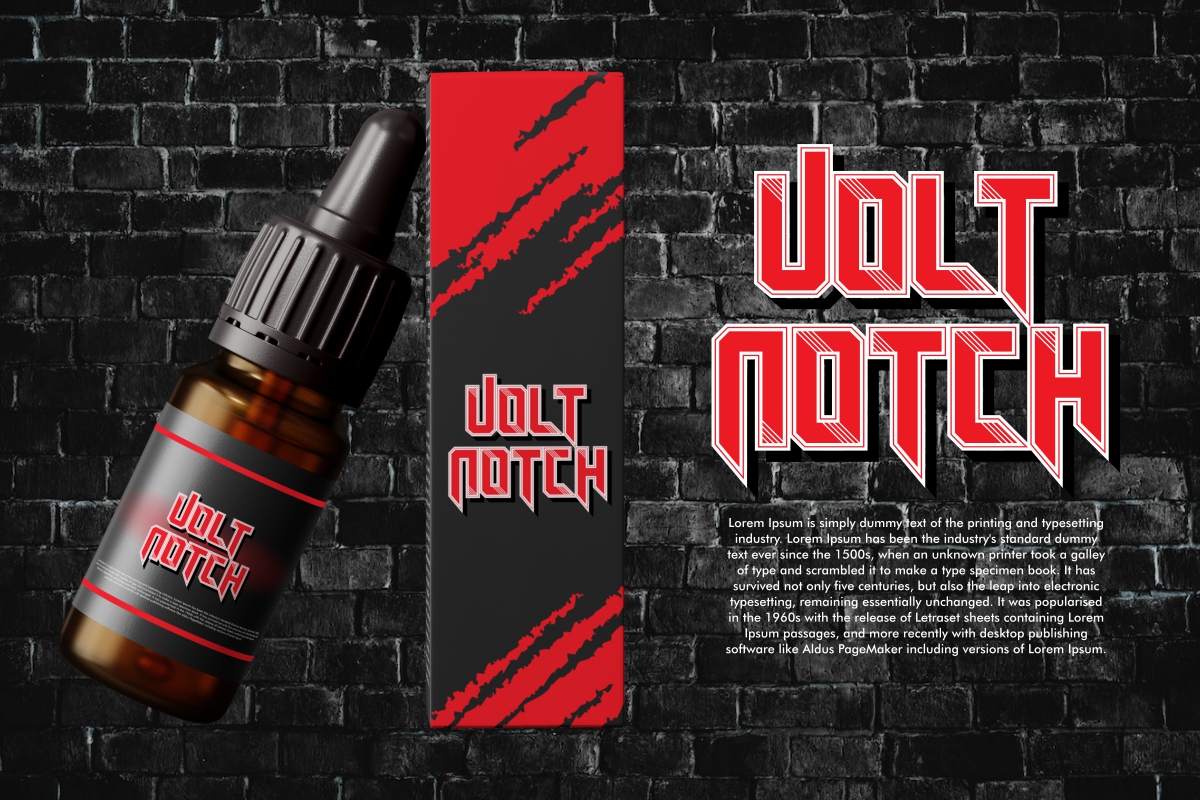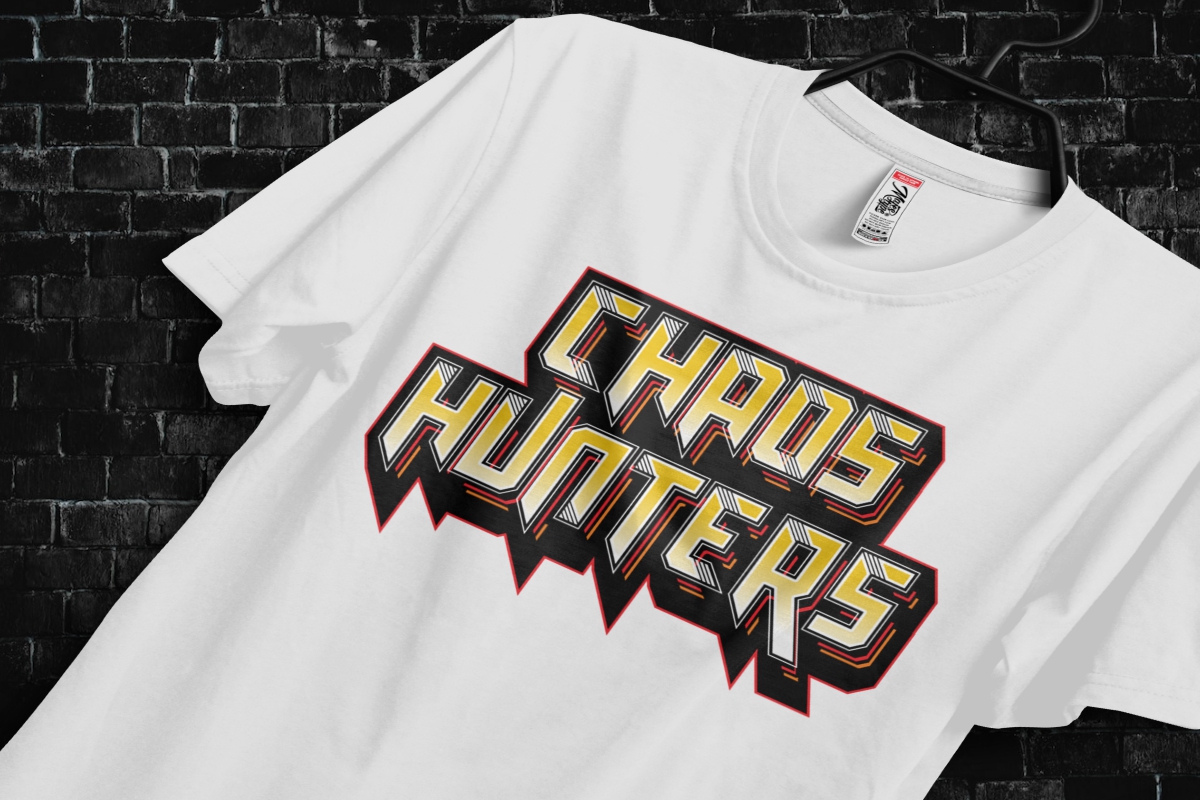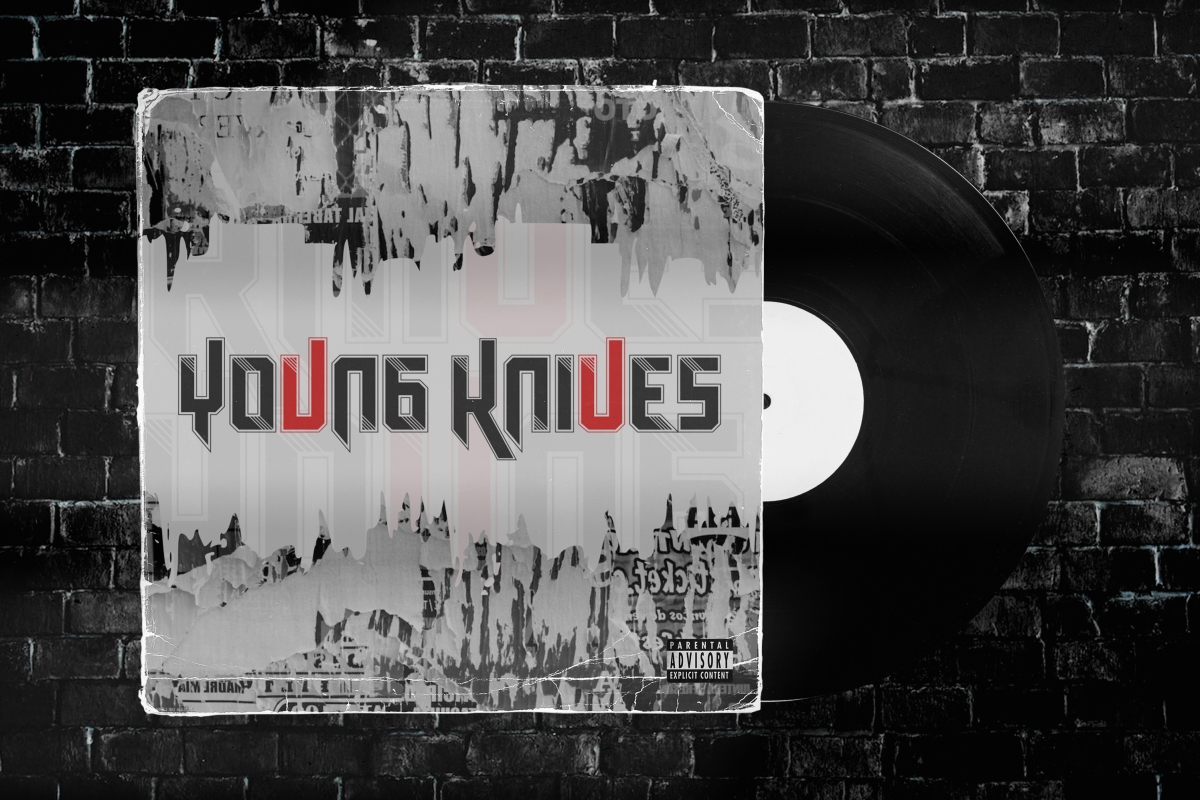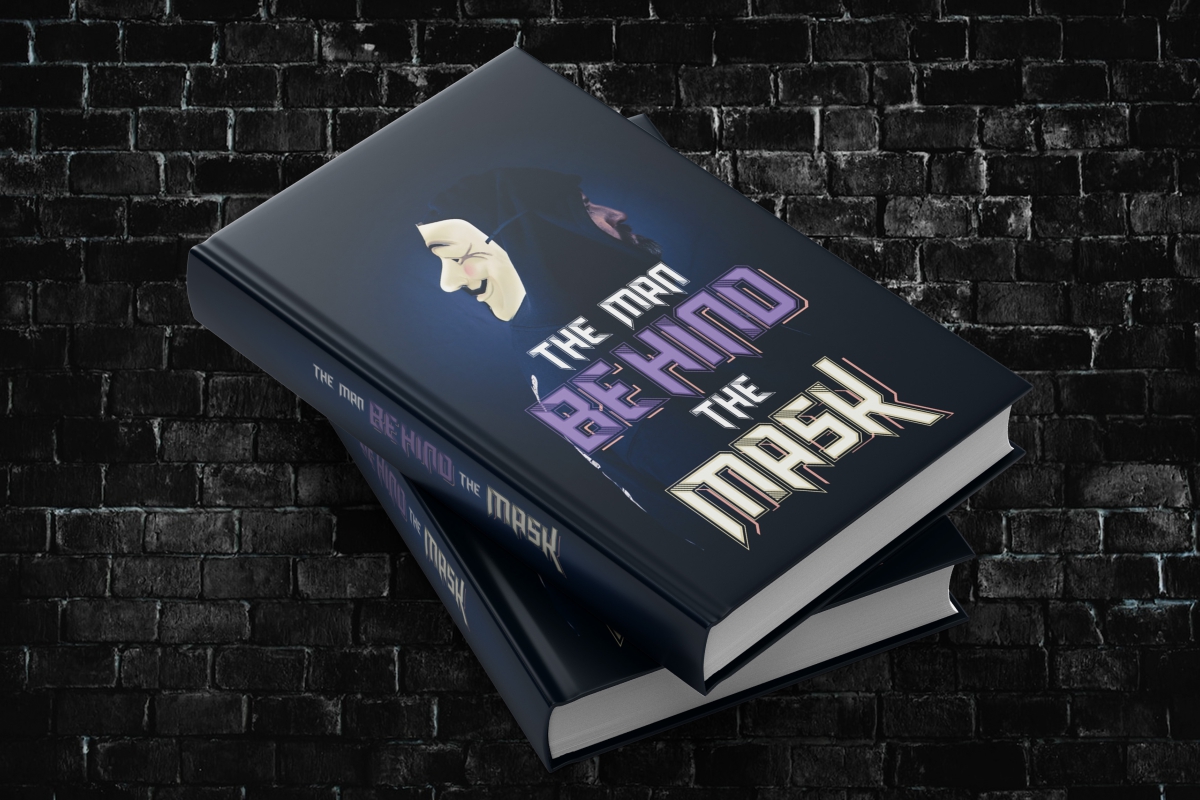
Rock Away Font
Rock Away Display Font
It’s an exclusive display font with racing and music theme created by NihStudio. This font has a unique line effect and sharp at the ends of the letters that makes it stand out and is perfect for industries such as: automotive, cigarette, fashion, musician, writer, etc.